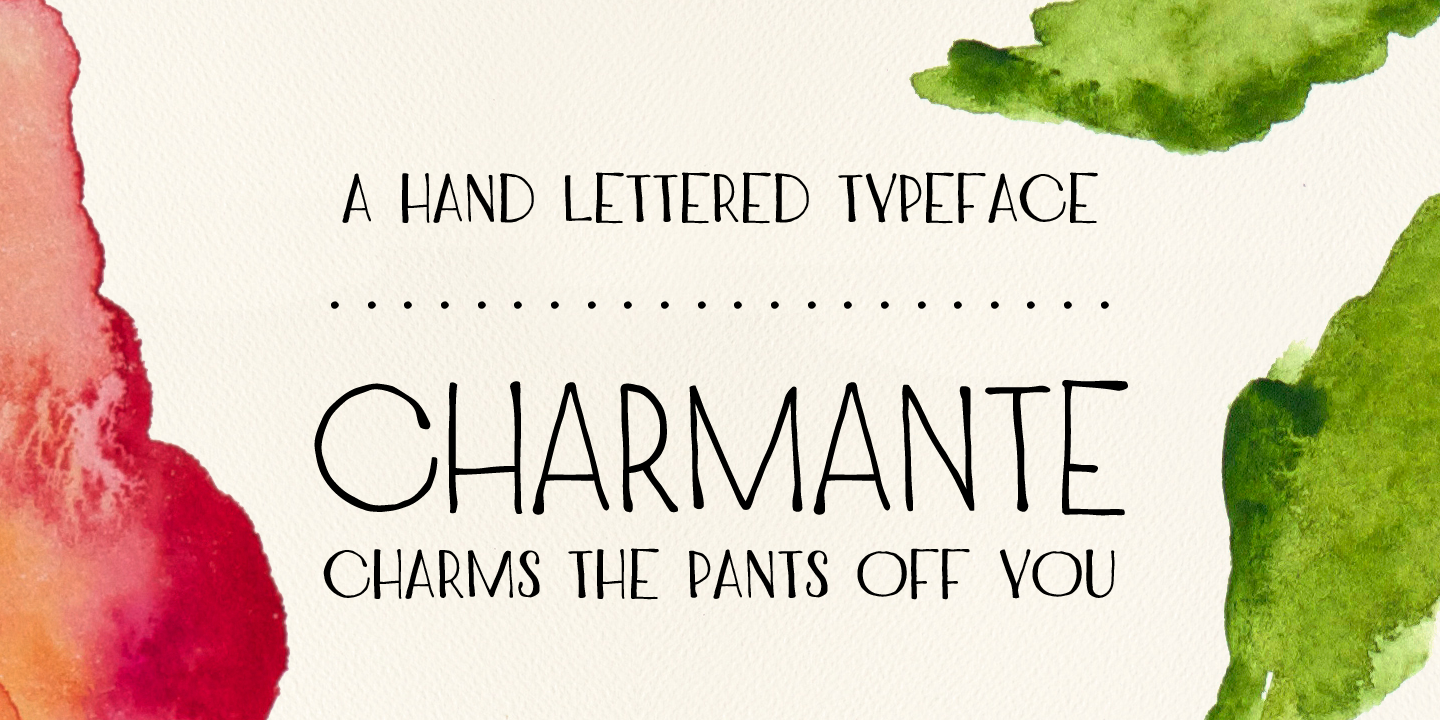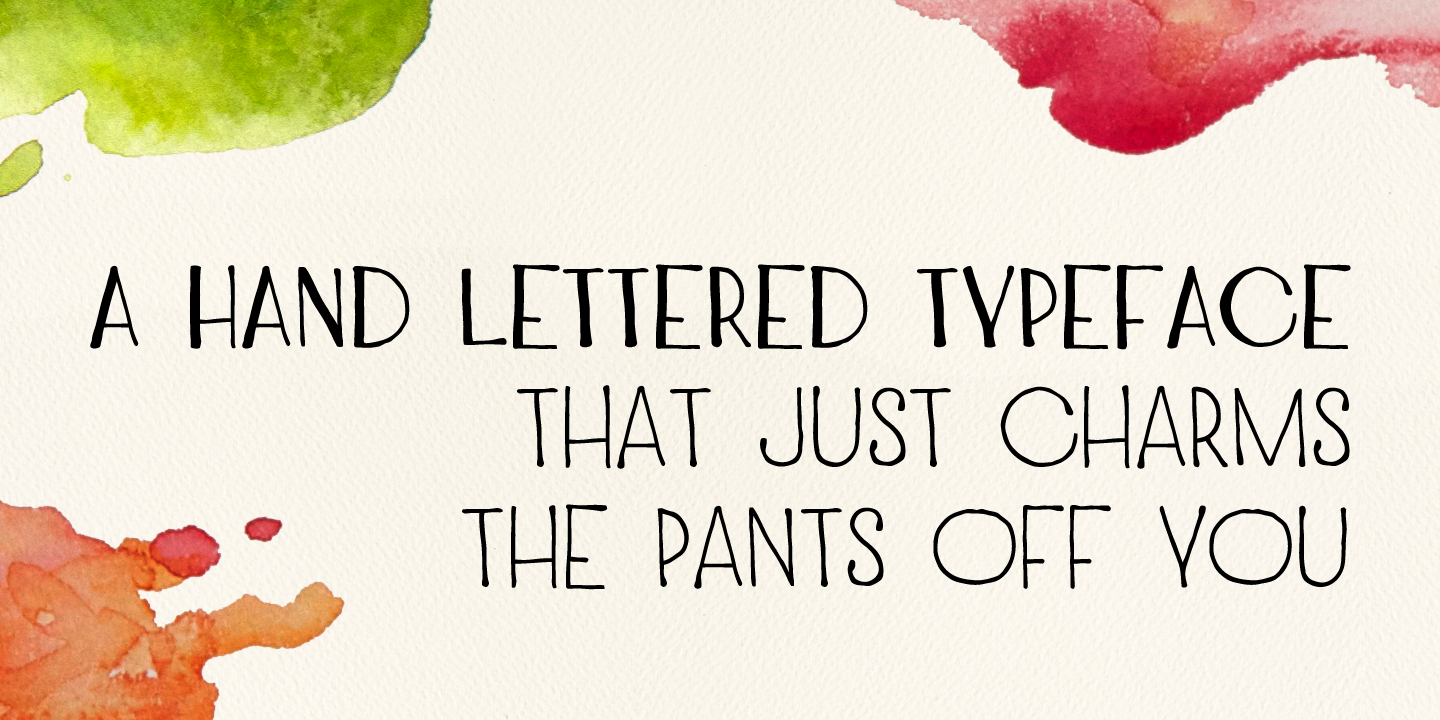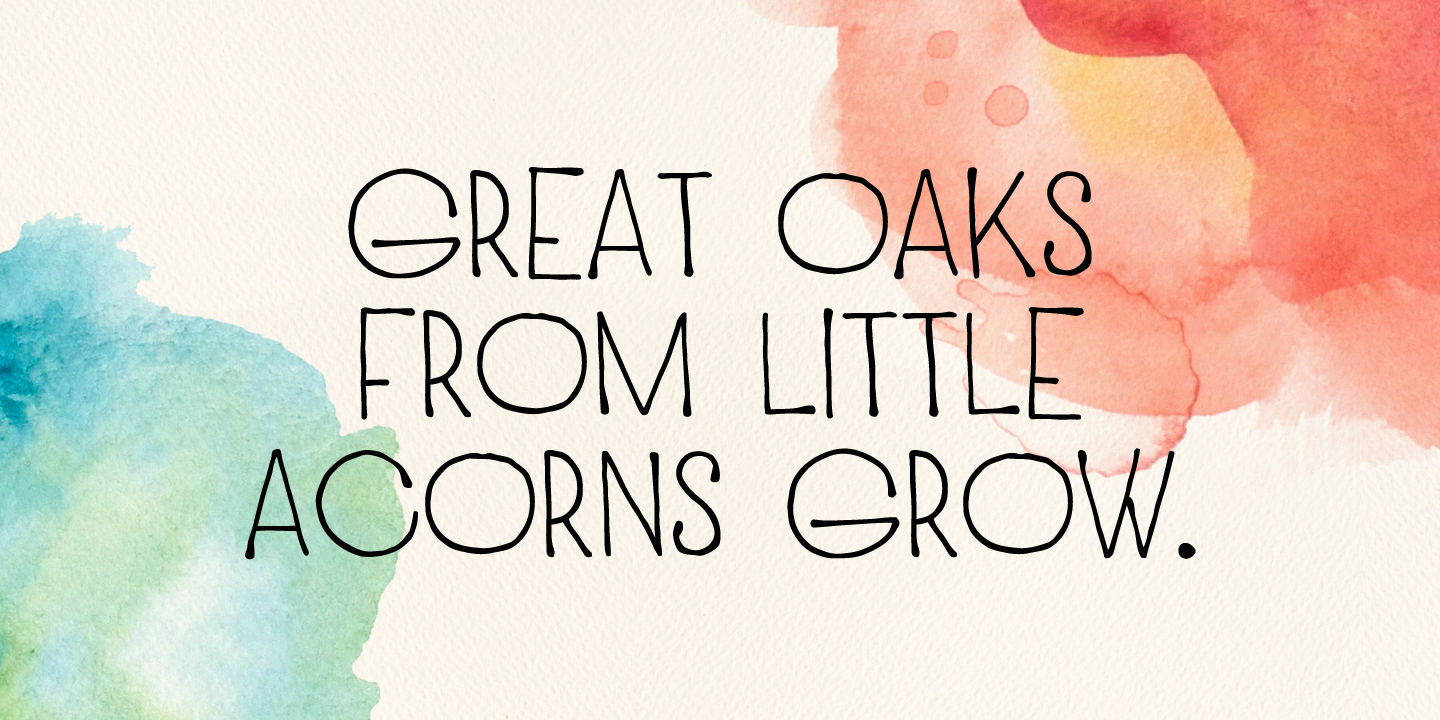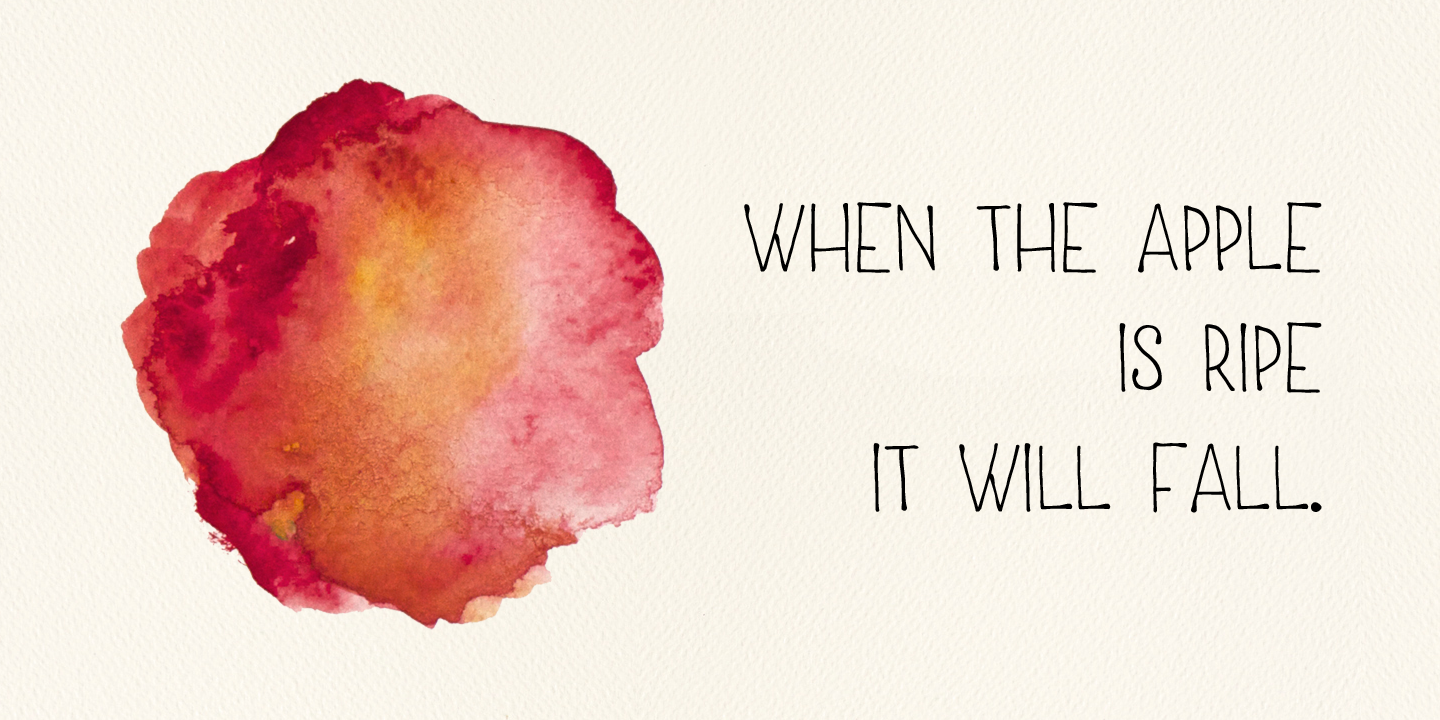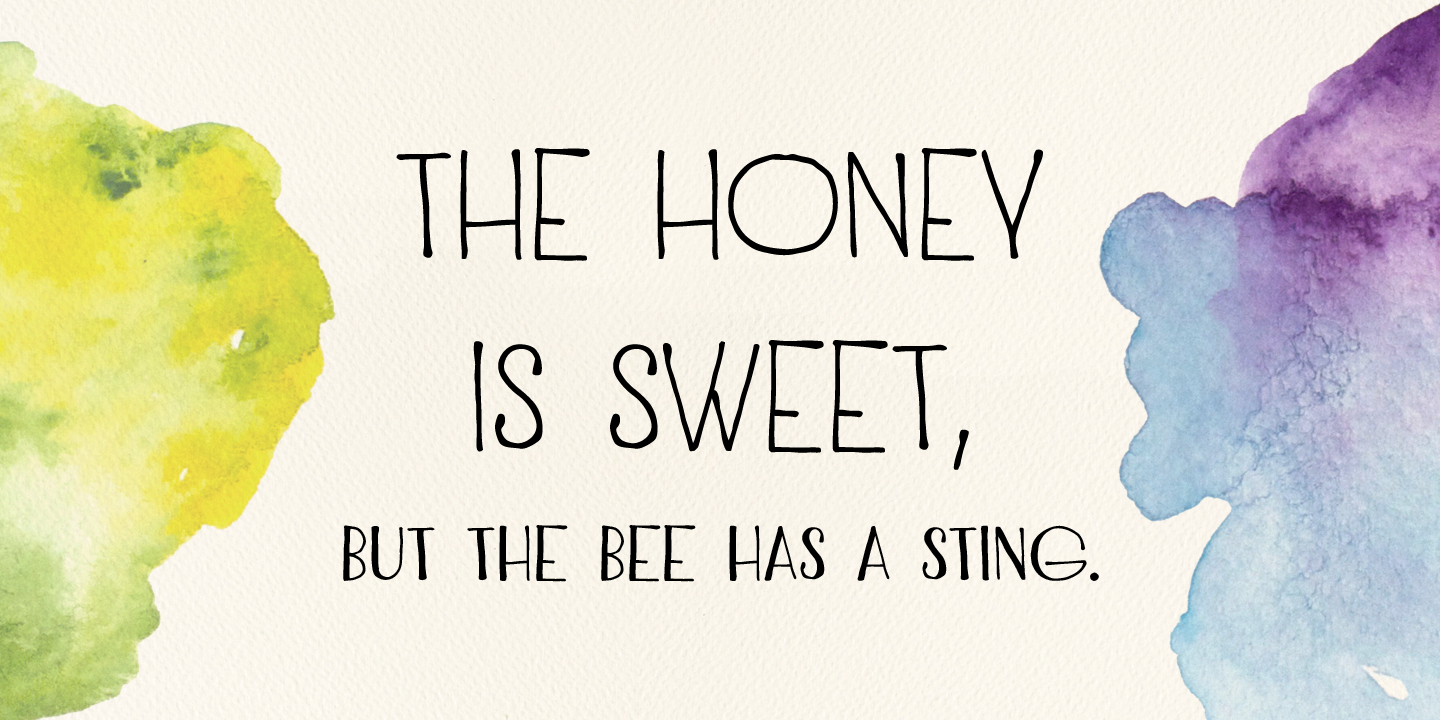
From Juraj Chrastina Type
Charmante is ideal for save-the-dates, wedding announcements, invitation cards, greeting cards, gift tags, cafe or restaurant menus and for any other charming design.
His work began in web design, and now covers print design, corporate and product identity design, other media, some photography, and type design. “Designing type is a very pure form of design for me, and the more involved I get in typography the more inspired I get. I´d love to work more with type design in the future, which means changing the ratio of my creative activities.”